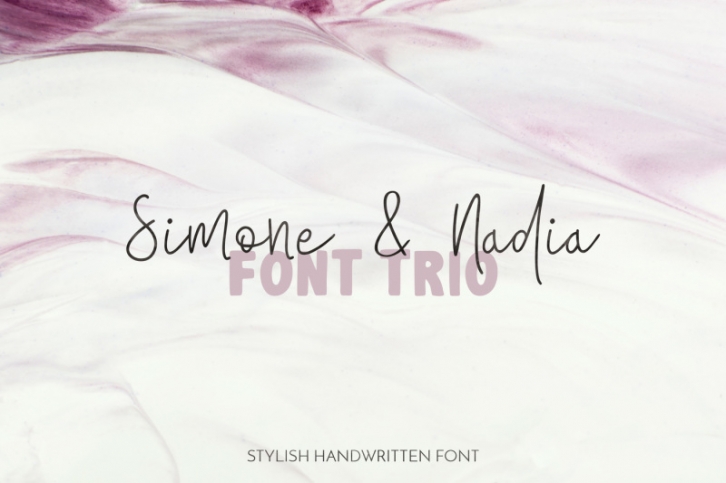
Simone & Nadia Font Trio Download
Handwritten trio font.
Perfect for greeting cards, branding projects, homeware designs, stationery design, social media, packaging, magazine layouts, prints and more!